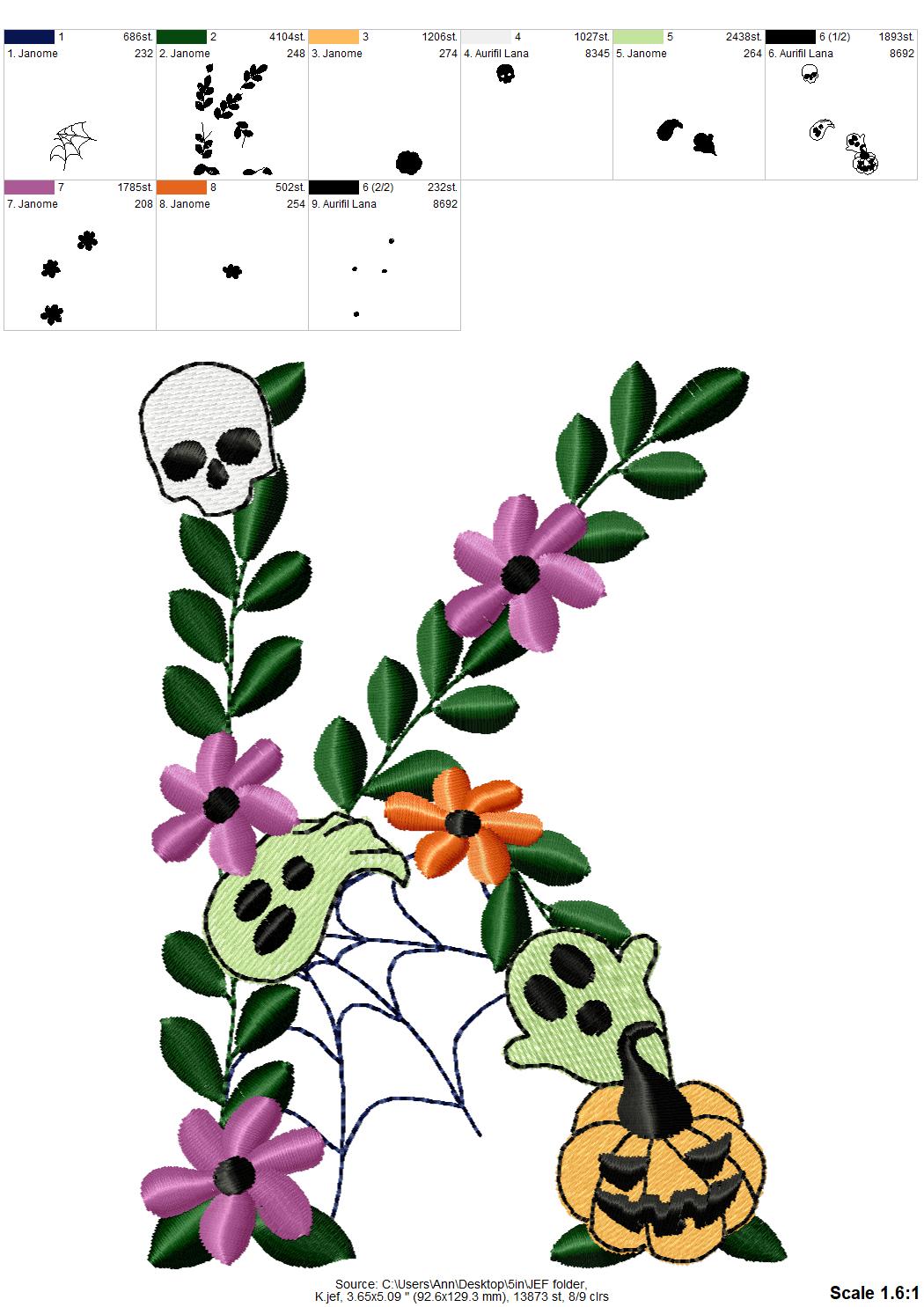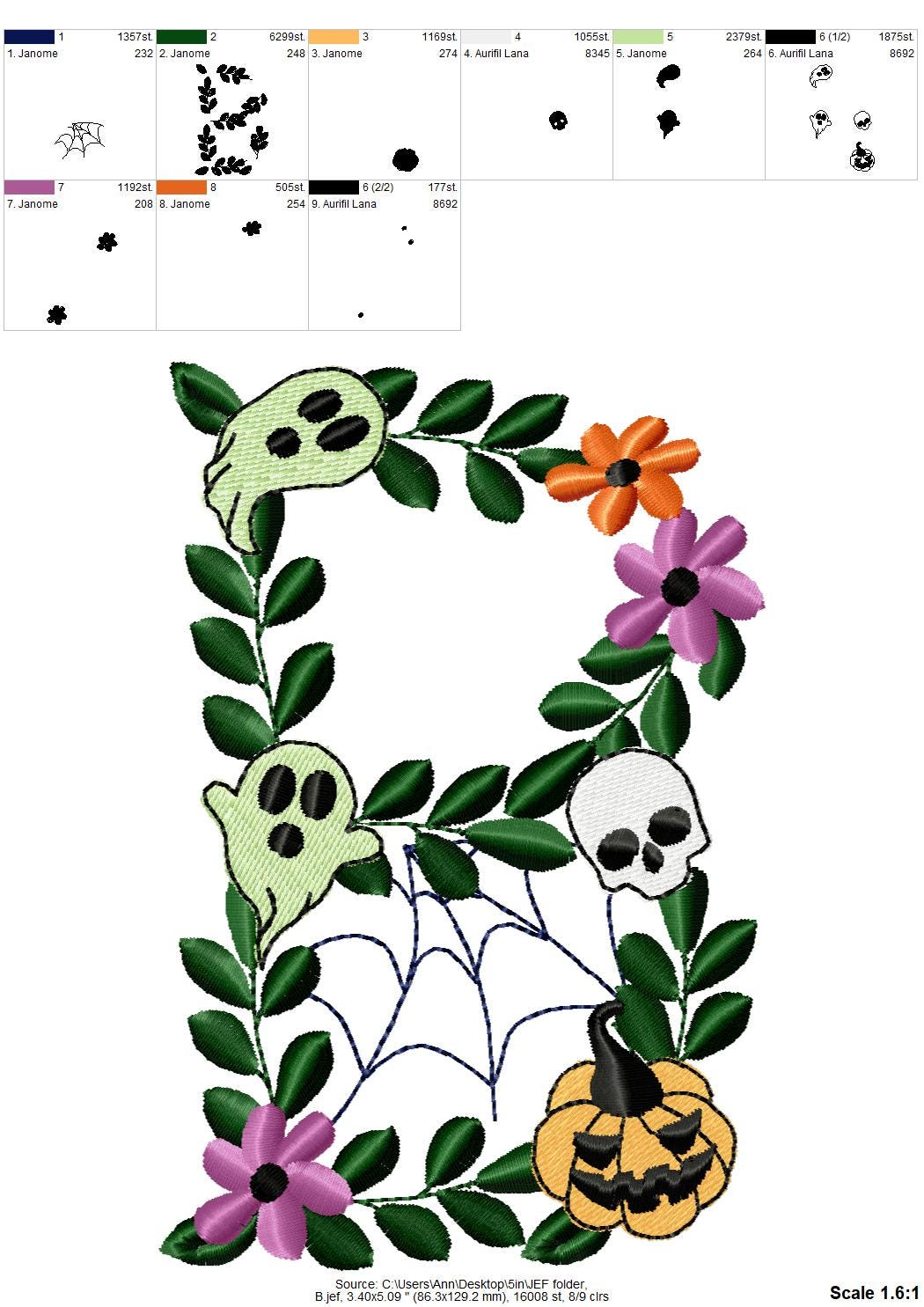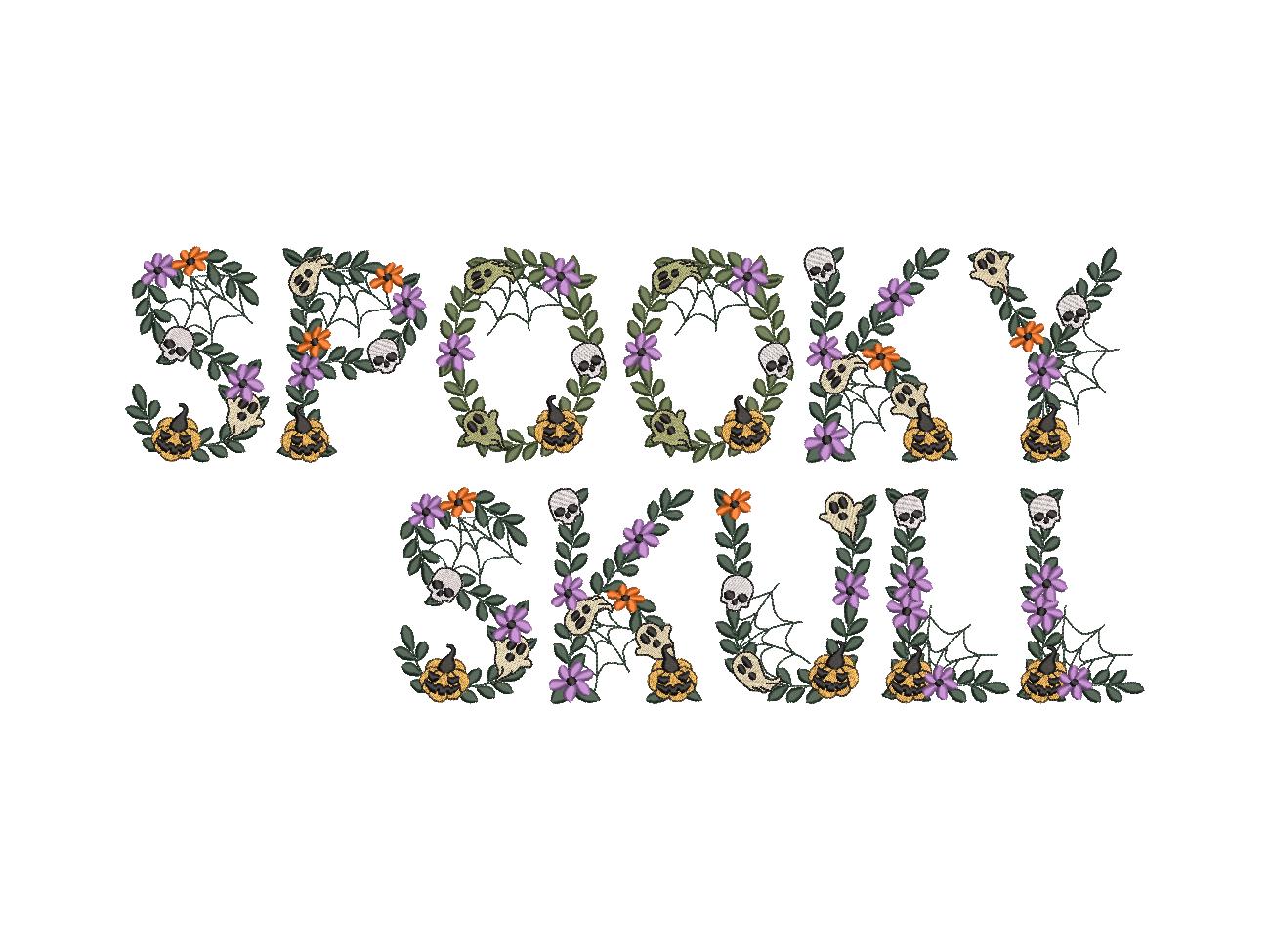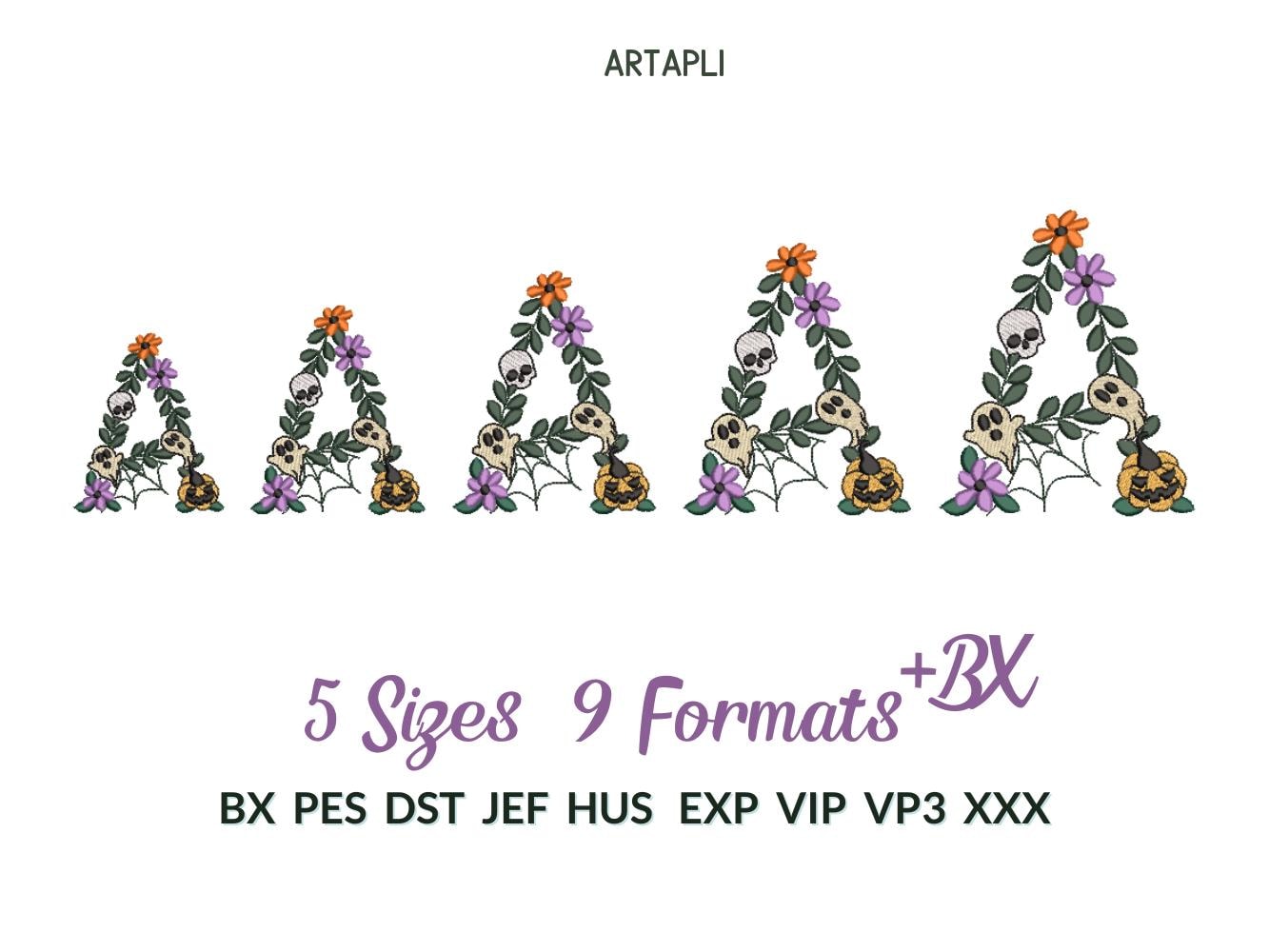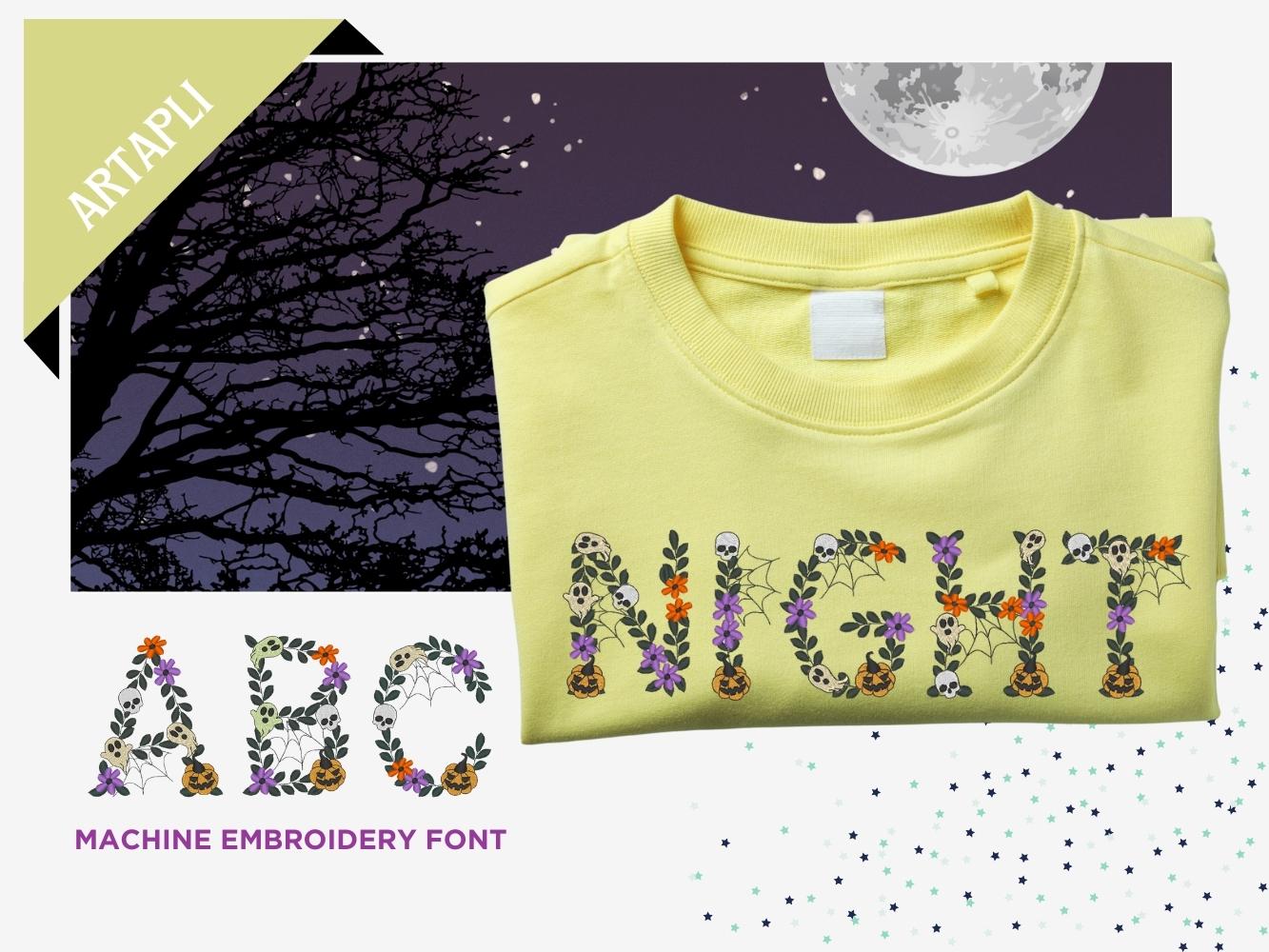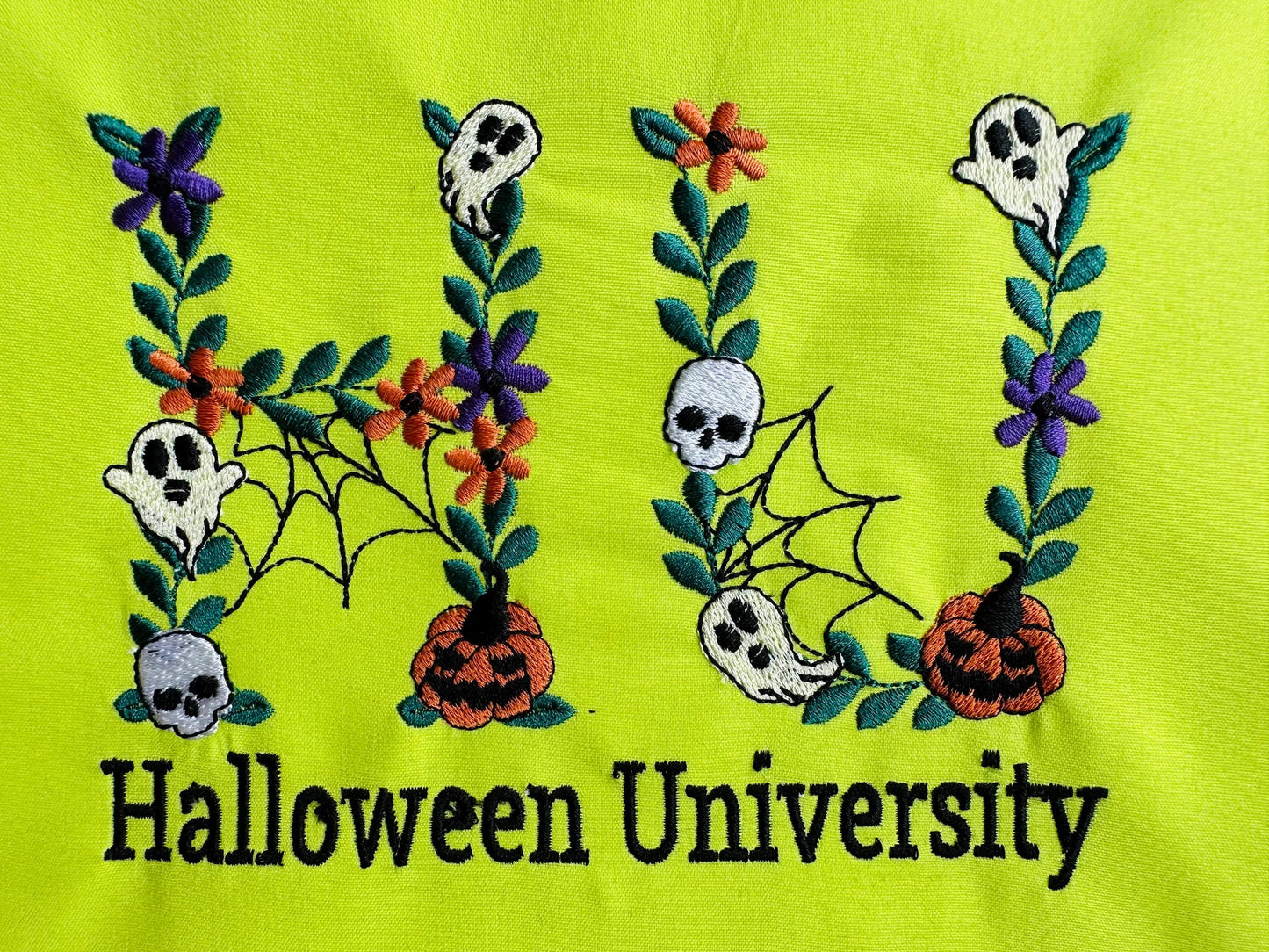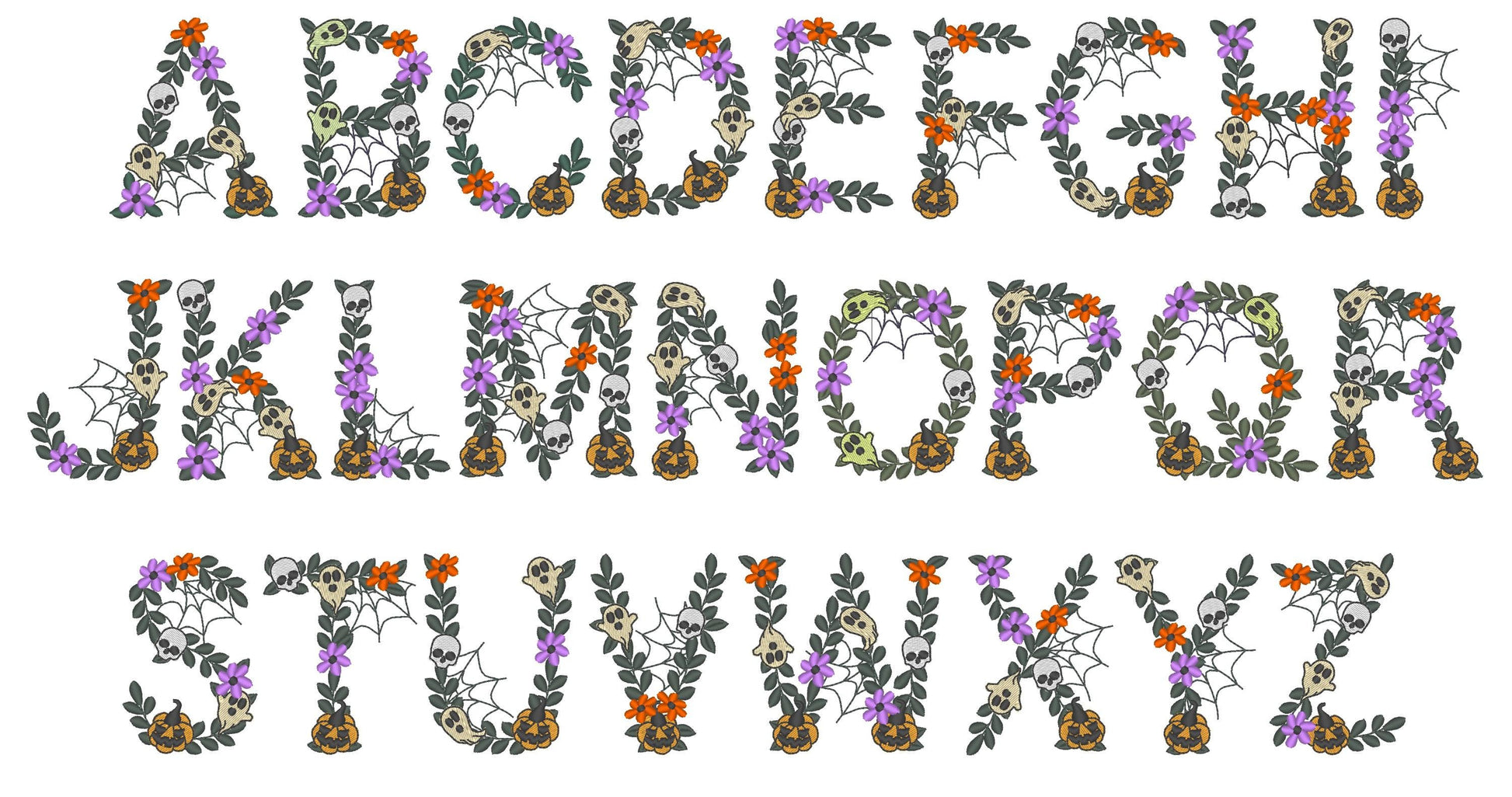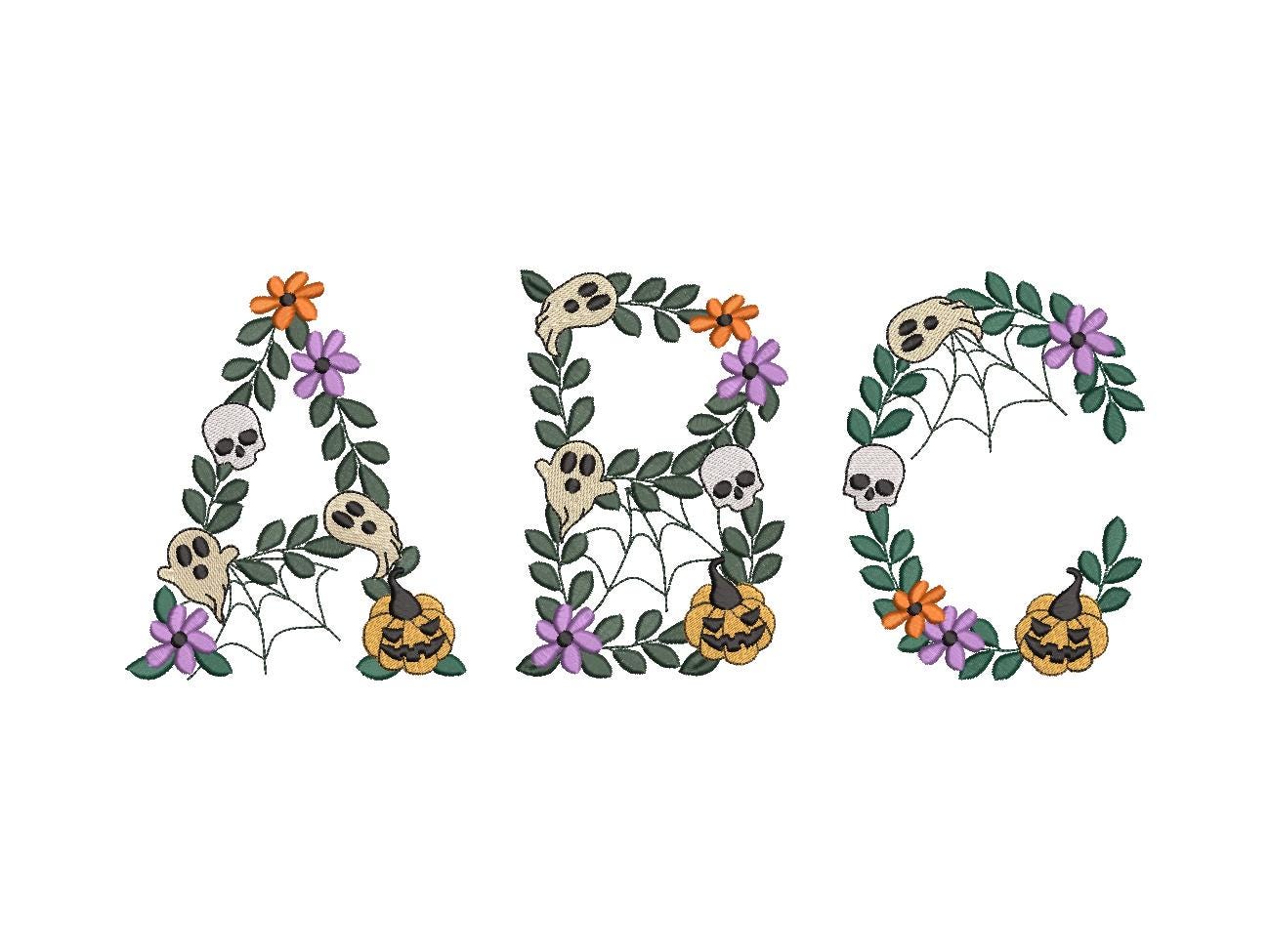
Or click to open the linkA spooky skull Halloween font with spider webs, ghosts, jack-o-lanterns and flowers. Fun for Halloween shirts, bags, pillows and decor.
Uppercase letters A to Z. Five sizes: 3.4, 4, 4.5, 5 and 5.7 inches.